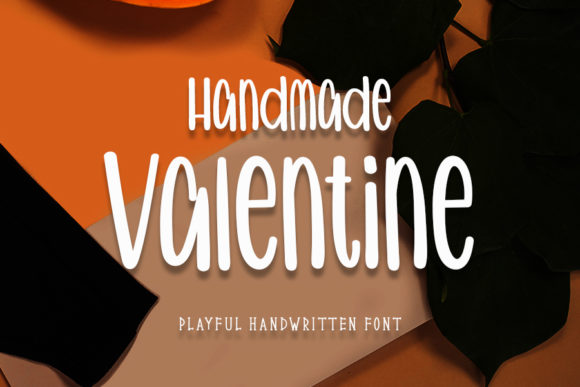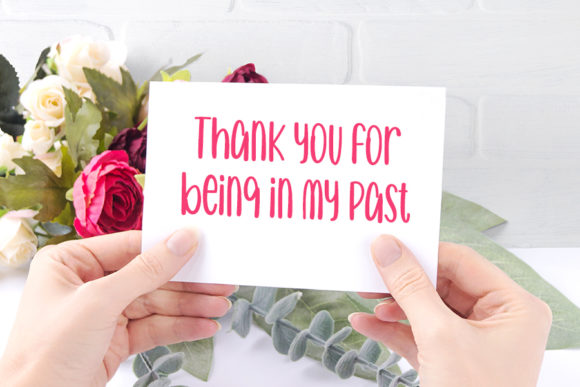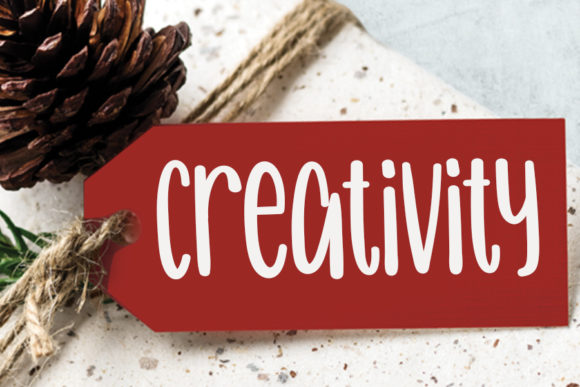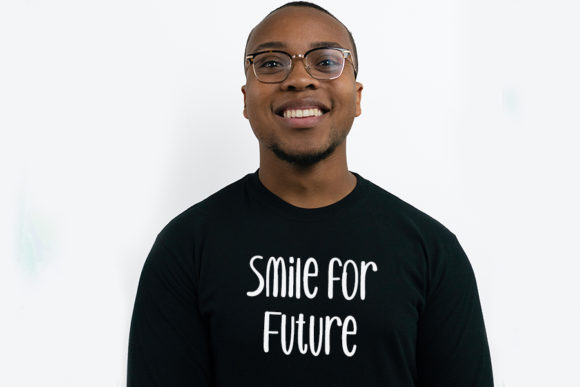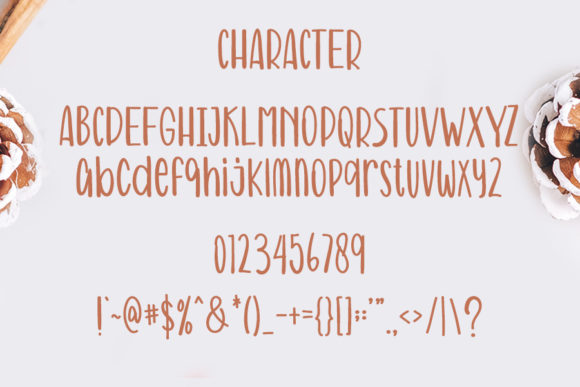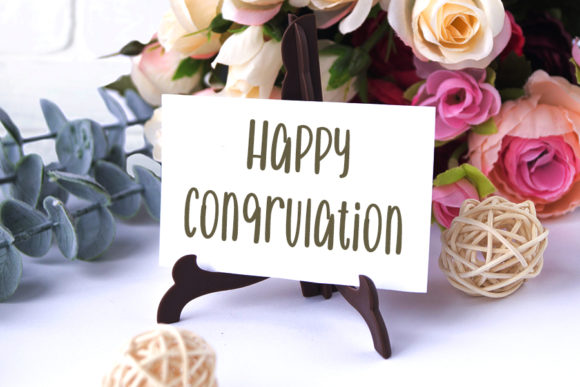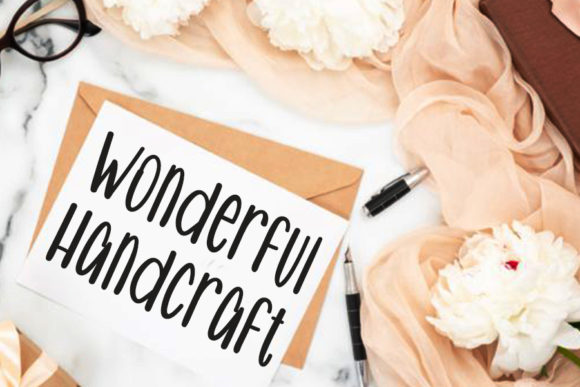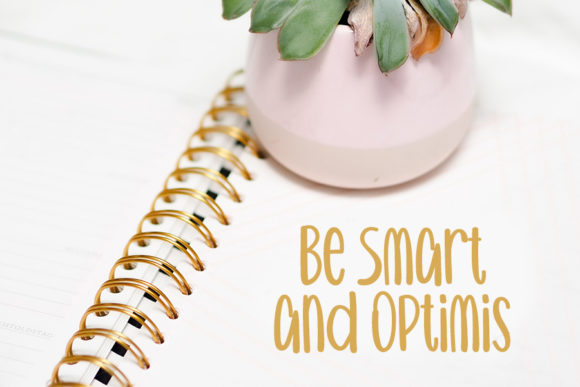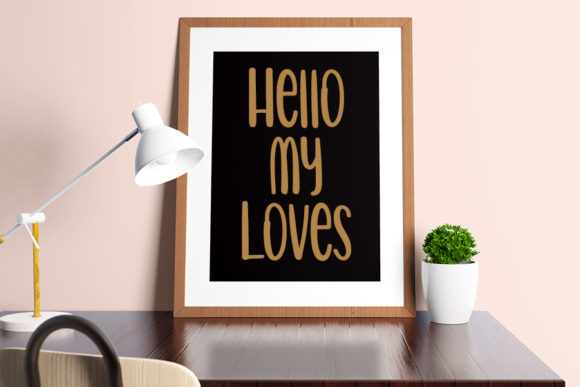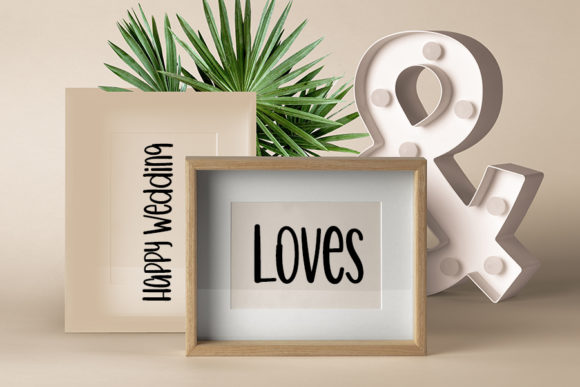
Handmade Valentine Font
About Handmade Valentine Font
Handmade Valentine is a charming and playful handwritten font that adds a touch of whimsy and creativity to your designs. With its neat and clean letterforms, this font is perfect for a variety of applications, whether you’re looking for fonts to use on social media posts, crafting projects, or any creative endeavor that requires a unique and artistic touch.
The handwritten style of Handmade Valentine brings a personal and authentic feel to your designs. It captures the organic flow of ink on paper, giving your text a handmade and heartfelt appearance. This font is designed with care and attention to detail, ensuring that each letter is beautifully crafted and visually appealing.
The playful nature of Handmade Valentine makes it ideal for adding a touch of joy and fun to your designs. Whether you’re creating Instagram posts, blog graphics, or DIY project materials, this font will bring a sense of creativity and originality. Its playful and lively characters can instantly uplift the mood and make your content more engaging.
Handmade Valentine is versatile and can be used in various design contexts. It works well for social media posts, where you can use it to create eye-catching captions or add a personal touch to your stories. Additionally, it’s perfect for creating calligraphy scripts for DIY projects such as greeting cards, posters, or scrapbooking. Its neat and clean style ensures that your text remains legible while still having a handcrafted look.
With Handmade Valentine, you have the flexibility to customize and enhance your designs. Experiment with different letter combinations, alternates, and ligatures to create unique and artistic typography. Let your imagination run wild and transform your creative ideas into true pieces of art.
Embrace the charm and playfulness of Handmade Valentine and watch as it brings a delightful and artistic touch to your designs. Whether you’re working on social media graphics, DIY projects, or any other creative endeavor, this font will add a personal and handmade feel to your work. Let Handmade Valentine turn your ideas into true pieces of art and captivate your audience with its neat and playful handwritten style.